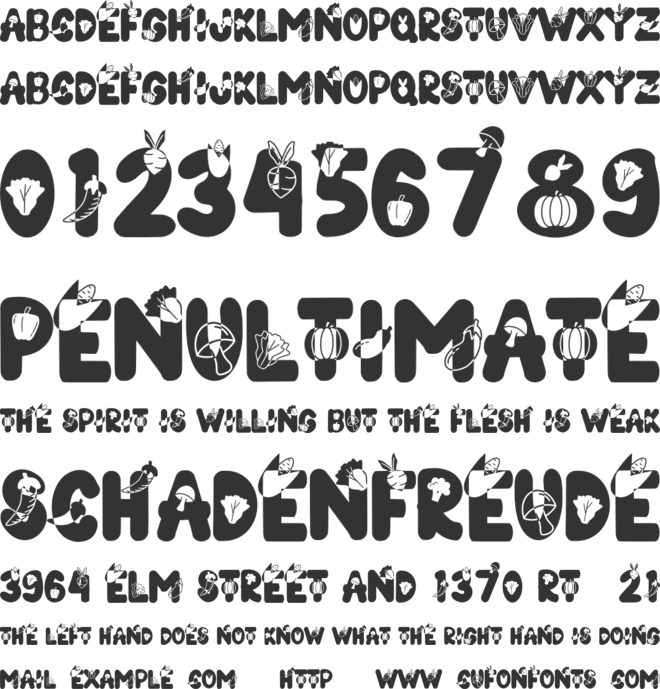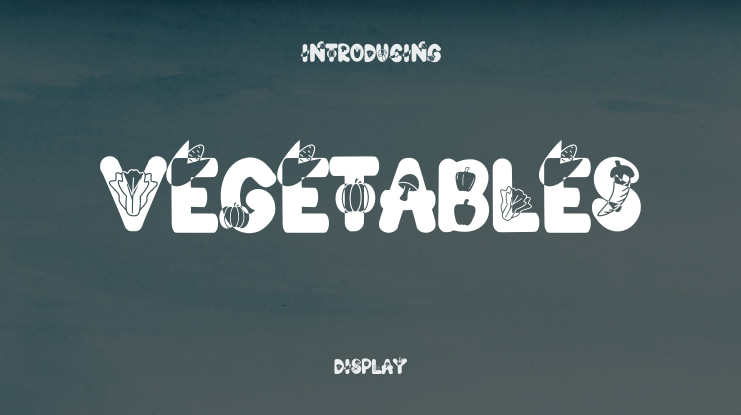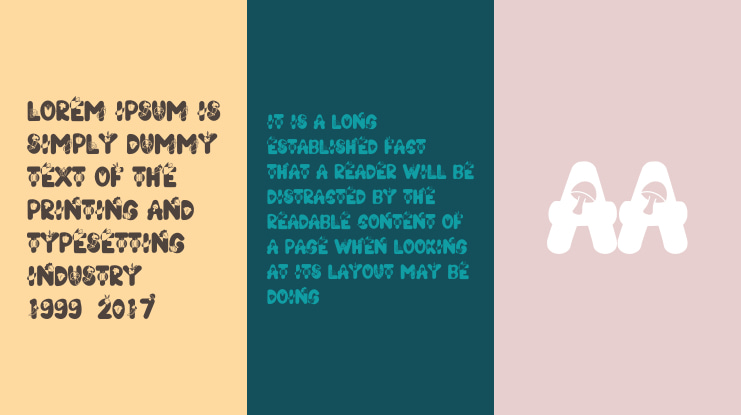
VEGETABLES Font
VEGTABLES font for kids, for the community of vegetable lovers, vegetarians, or vegetable entrepreneurs.
Vegetables is an excellent playful font. It features Vegetable-themed characters and will add a lovely, fun look to any kid and school project, for t-shirts, for vegetable product packaging, for shop logos, for SVG cut files and much more!